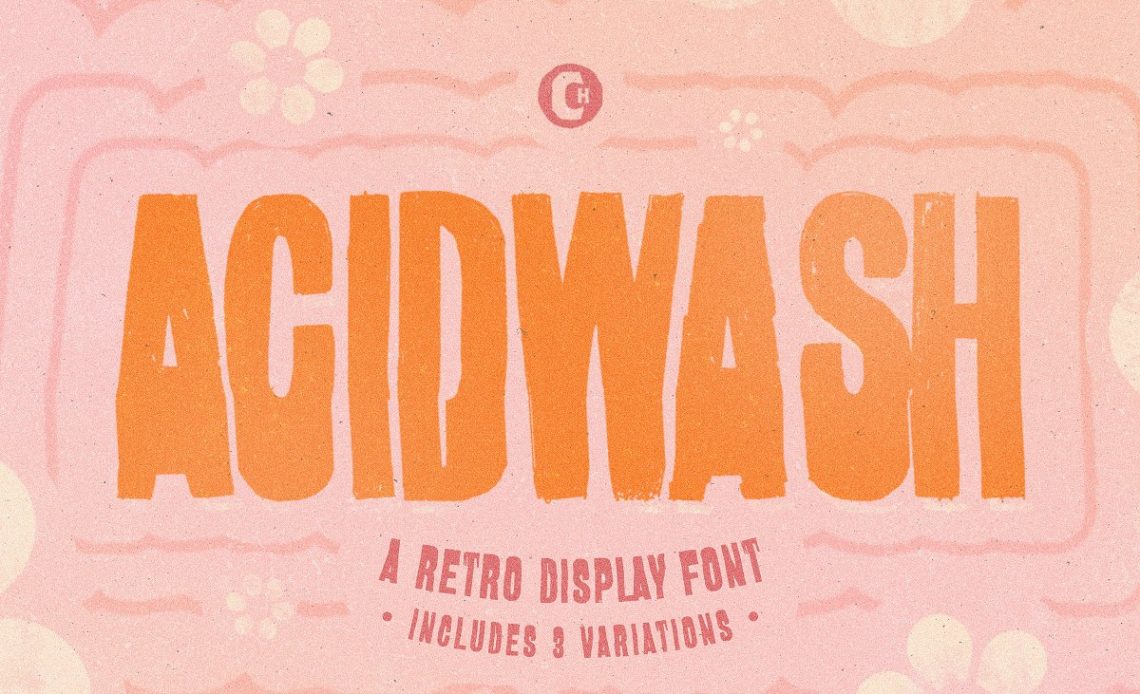
Introducing ACIDWASH Font, the best font for vinyl lettering that will bring your designs to the next level! Created by Cameron Humphries, this completely hand-drawn, bold, retro display font is inspired by the grunge and rock of the 70s.
ACIDWASH is the perfect font for any design project, whether you're creating a logo for your brand, designing an album cover, or adding text to your website. With three font variations and alternative characters, you can customize your designs to create a unique look and feel.
This all caps font is easy to use and comes with numerals, so you can create stunning designs without needing any special software. And if you have any questions or queries, Cameron Humphries is always available to help.
ACIDWASH Font is more than just a font; it's a statement. Its bold, retro style will grab your audience's attention and convey a sense of attitude and rebelliousness. Whether you're looking to create a vintage-inspired design or add some edge to your modern project, ACIDWASH is the perfect choice.